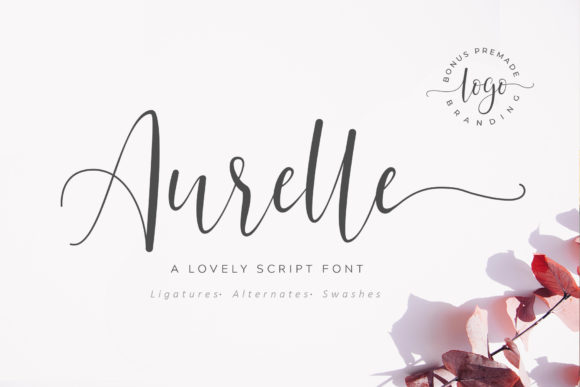
The Designer’s Delight: Falling in Love with Aurelle Font
I’ll never forget the time I was working on a project for a client who wanted a elegant, yet playful font to match their brand’s personality. I had spent hours scouring through font libraries, but nothing seemed quite right. That was until I stumbled upon Aurelle Font. Its beautiful script curves and flowing lines instantly caught my attention, and I knew I had found the perfect fit. In this article, I’ll share my love for Aurelle Font, its features, and how to make the most of it in your designs.
An Honest Review of Aurelle Font
What I Love About Aurelle Font
- ✨ Elegant and sophisticated, yet playful and fun
- ✅ Beautifully crafted with attention to detail
- 💫 Perfect for a variety of design projects, from branding to wedding invitations
- 👍 Highly legible, even at smaller font sizes
While Aurelle Font is an amazing font, there are a few things to keep in mind:
- 🤔 Some letters may not connect perfectly, which can affect the overall flow of the text
- ⚠️ May not be suitable for very large or very small font sizes, as some details may get lost
The Backstory of Aurelle Font
Aurelle Font was designed with the intention of creating a beautiful, elegant script font that would add a touch of sophistication to any design project. The designer drew inspiration from classic calligraphy and modern typography to create a font that’s both timeless and trendy.
| Font Name | Aurelle Font |
| Author | sancreastd. |
Q: What type of projects is Aurelle Font best suited for?
A: Aurelle Font is perfect for a variety of design projects, including branding, wedding invitations, and social media graphics.
Q: Is Aurelle Font easy to read?
A: Yes, Aurelle Font is highly legible, even at smaller font sizes. However, it’s best to use it at a minimum of 10-12 points for optimal readability.